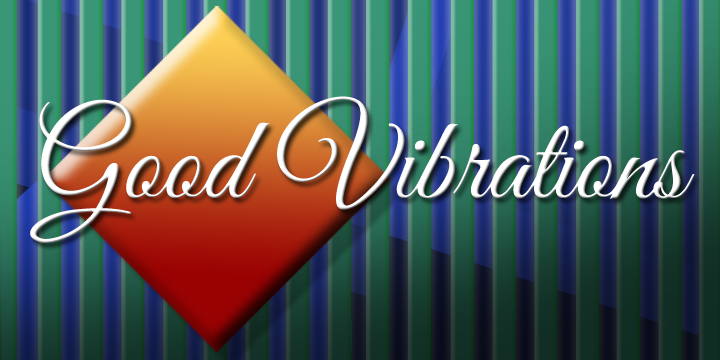
Good Vibrations Font is perfect for retro-themed branding, beach party posters, music festival flyers, summer apparel design, greeting cards, and Instagram graphics that need a splash of good vibes. With its groovy, flowing script, this font radiates warmth and rhythm.
What makes Good Vibrations Font Free Download so exciting is its carefree, hand-lettered look that instantly channels 1960s California sunshine. It’s playful, it’s nostalgic, and it practically sings off the screen—ideal for projects that want to spread joy and creativity.
The font family includes styles like Good Vibrations Regular, Good Vibrations Bold, and even swashy or decorative alternates that add flair to every letterform. It’s versatile enough for both casual and artistic applications, especially when you're aiming to catch the eye.
Whether you're working on a surf brand, planning a vintage vinyl cover, or crafting a chill lifestyle blog, Good Vibrations Font Free Download adds character and charm. Don’t forget, while you can test it for free, commercial use requires proper licensing.